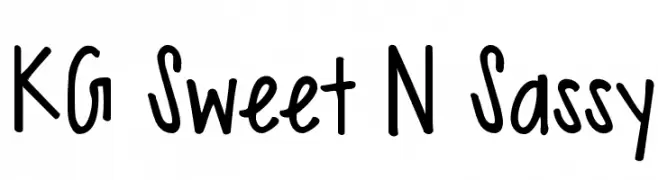
A playful, hand-drawn marker-style font with a casual and friendly appearance.
A bold, modern font with geometric shapes and unique letter designs.
A bold, impactful font with thick strokes and slightly rounded edges.
A playful, bold handwritten font with rounded, smooth curves.
A playful, bold font with rounded, bubbly characters.
A playful, bold font with rounded, bubbly characters perfect for fun and whimsical designs.
A playful, hand-drawn font with bold, rounded characters.
A bold and playful handwritten font with rounded, irregular characters.
A playful, bold handwritten font with rounded strokes and a casual vibe.
A playful, retro-inspired font with bold, rounded characters.
A bold, decorative font with a dotted pattern and rounded characters.
A playful, bold font with rounded, bubbly characters ideal for fun designs.
A playful, bold font with rounded, thick strokes and a whimsical touch.
A dynamic, handwritten-style font with expressive and fluid strokes.
A bold, playful font with a three-dimensional graffiti-inspired style.
A playful, spooky font with a dripping, melting appearance.
A playful and energetic handwritten font with fluid, dynamic strokes.
A whimsical and elegant script font with decorative swirls and loops.
A flowing, elegant script font with a handwritten style.
A playful, bold font with rounded, bubbly characters ideal for creative projects.
A playful, whimsical script font with a handwritten feel and charming embellishments.
A bold, expressive handwritten font with dynamic flow and artistic flair.
A graceful and elegant script font with a calligraphic style.
A playful, handwritten script font with elegant loops and smooth curves.
A fluid and elegant script font with interconnected, graceful strokes.
A playful, bold handwritten font with a whimsical and friendly style.
Playful handwritten-style font with smooth curves.
Playful handwritten decorative font.
Casual handwritten font with a playful style.
Playful handwritten font with rounded edges.
A playful, elegant script font with a handwritten style.
Playful handwritten font with rounded edges.
Bold, playful handwritten font.